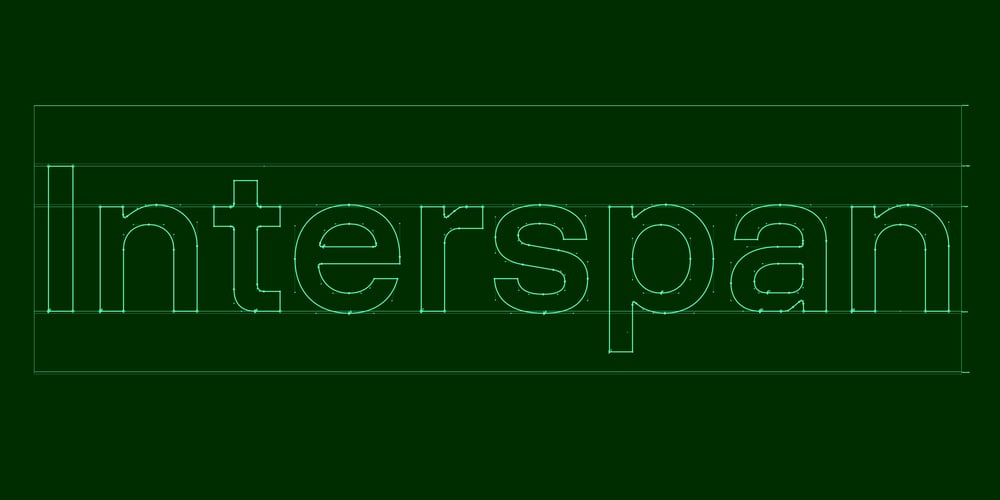
Interspan
Interspan font
Interspan Font Family was designed by Alfredo Marco Pradil and published by Hanken Design Co.. Interspan contains 10 styles and family package options. Interspan is a low-contrast, compact grotesk sans serif typeface defined by clean lines, modern aesthetics, and versatile functionality. Its condensed letterforms enhance readability in tight spaces while retaining clarity. Distinctive details include an uppercase W that mirrors the shape of the uppercase V, creating visual harmony, and a lowercase r with a curved stem that adds subtle dynamism without disrupting consistency.The typeface spans a “broad range” of weights, from Thin to Heavy, ensuring flexibility across design applications—headings, subheadings, and body text. Despite its unique quirks, Interspan maintains a balanced rhythm, excelling in both display and long-form contexts. Clean yet characterful, it blends modernity with subtle personality, making it ideal for contemporary branding, editorial layouts, and user interface typography.